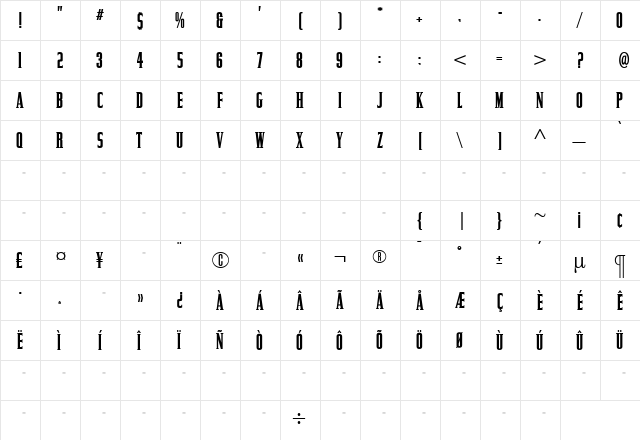
CommanderBold Regular
| Foundry | Copr. Red Rooster Typefounders |
Design Context for CommanderBold Typeface
CommanderBold takes a measured approach to typography — its balanced proportions and neutral character make it a reliable workhorse for both digital and print work. The heavy weight commands attention and anchors typographic hierarchies.